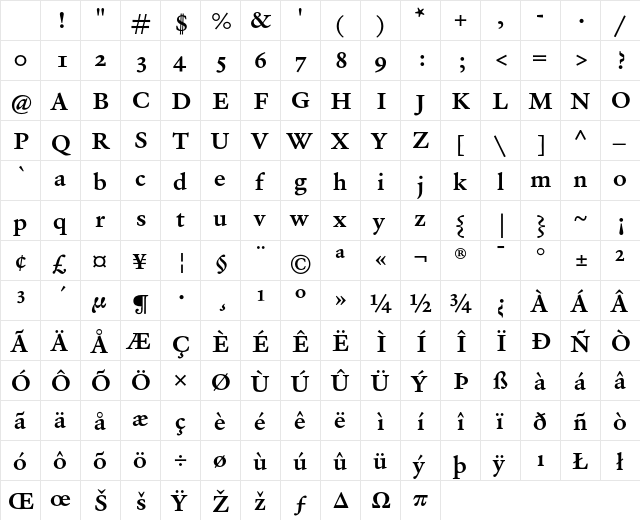
Complete Verdigris MVB TF Bold glyph index. Displaying only characters natively supported by Verdigris MVB TF Bold font.
Verdigris MVB TF is a composed and adaptable typeface that performs quietly and consistently across a wide range of design contexts. Its bold stroke weight gives it real presence on the page.